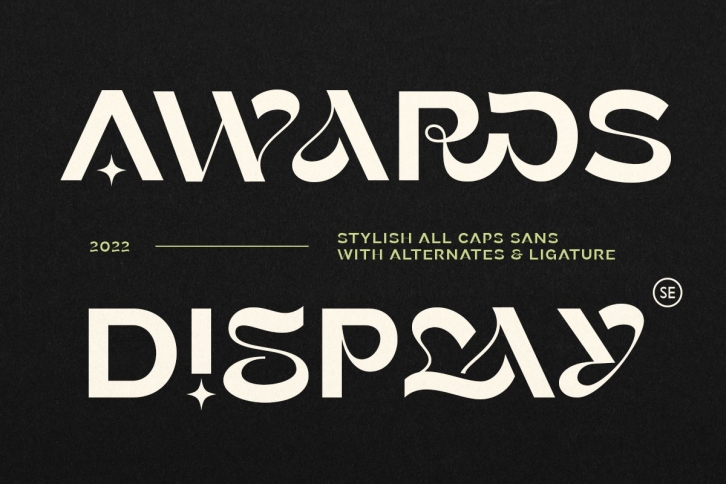
Awards is a trendy and unique font with an authentic style. It was designed by Saridezra and it's a great choice for creative people who need such a font. It was released on June 2, 2022 and the file size is 6.59 MB. Awards will add an organic vibe to any design idea!